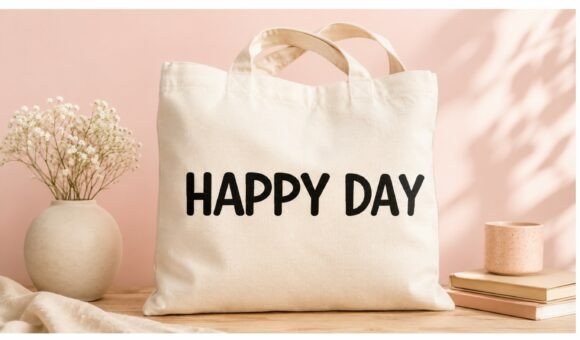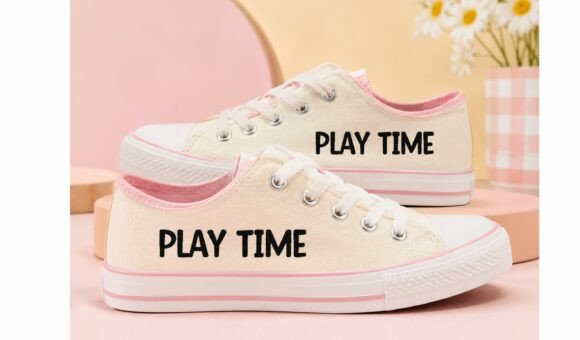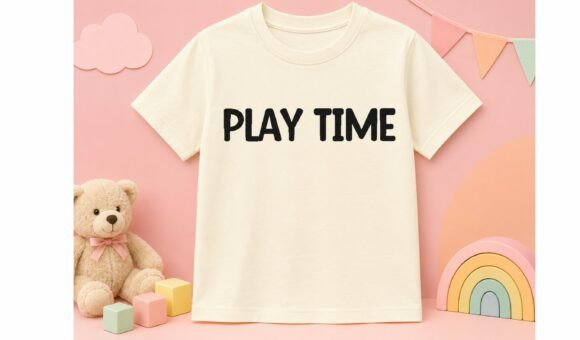
Introduction to More Sugar Font
More Sugar is a bold and playful display font with a cute handmade look.
This font is perfect for creating fun, sweet, and eye-catching designs for both digital and print projects With its thick, rounded, and friendly letter style, More Sugar is great for crafters, designers, small business owners, and anyone who wants to make cheerful designs that stand out.
Key Features of More Sugar Font
Why Choose More Sugar Font?